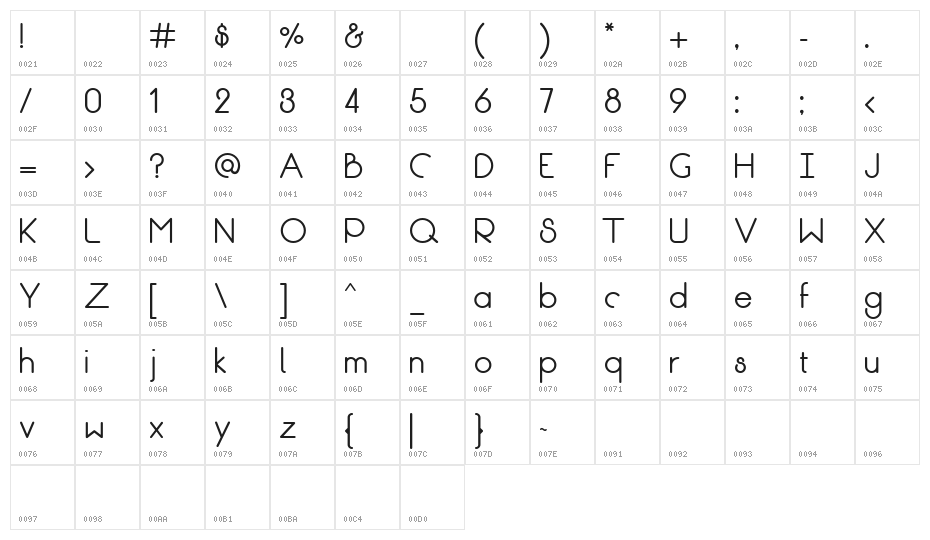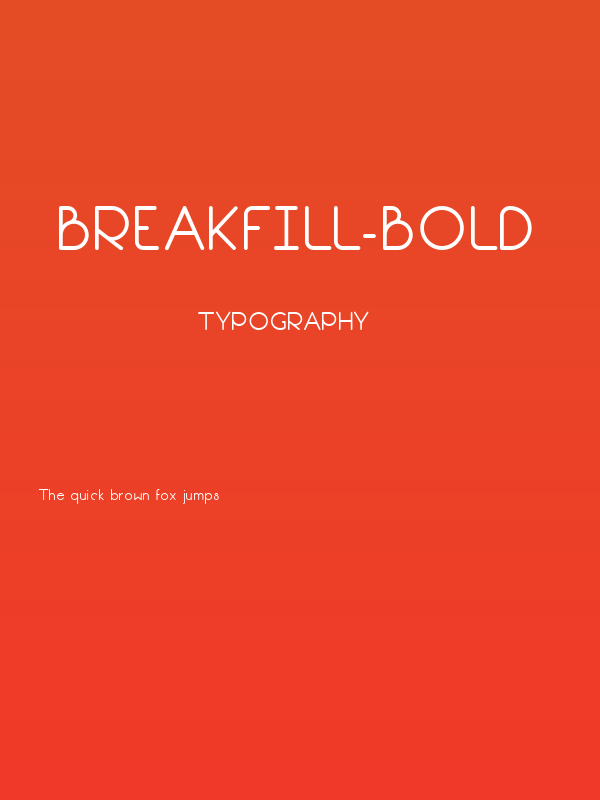
BreakFill-Bold Font
BreakFill-Bold Description
This font features a modern and clean design with rounded edges and a geometric structure. The characters are evenly spaced, providing a balanced and harmonious appearance. The uppercase letters are bold and assertive, while the lowercase letters maintain a consistent flow with slightly softer curves. The numerals are clear and legible, designed to complement the overall aesthetic. Special characters are included, offering a comprehensive set for various uses. The uniform stroke width across all characters gives it a cohesive look, making it suitable for a wide range of applications.
| Use Case | Headlines, Logos, Digital Media |
| Proposed Projects | Ideal for branding, advertising, digital media, and modern web design projects. |